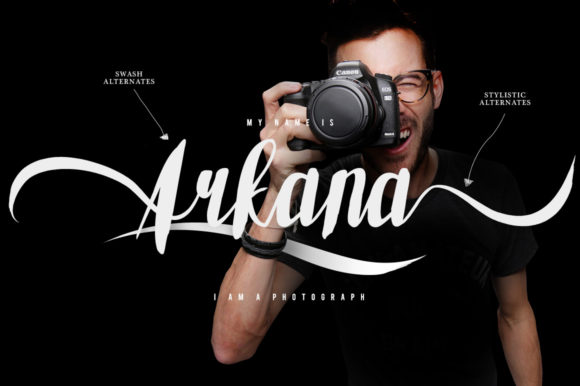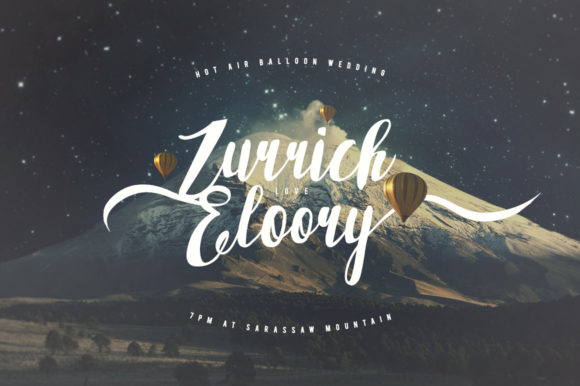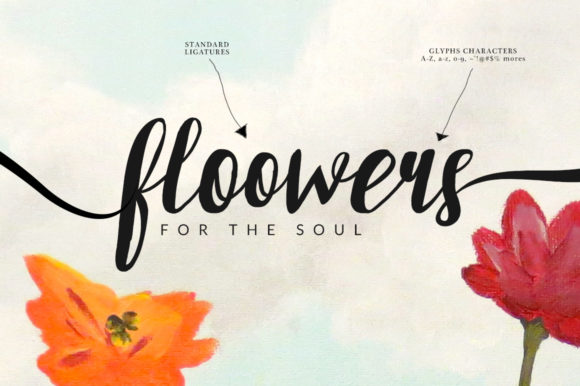
Introducing Chromount Script Font: The Perfect Charm for Your Design Projects
Are you looking for a font that can add a touch of sweetness and elegance to your design projects? Look no further than Chromount Script Font! This beautiful font is designed to bring a sense of charm and sophistication to any design, making it perfect for crafters, designers, and anyone looking to add a personal touch to their work.
What Makes Chromount Script Font So Special?
Chromount Script Font is a unique and stylish font that is sure to capture the attention of your audience. Its elegant and flowing script style makes it perfect for a variety of design projects, from wedding invitations and party decorations to branding and advertising materials. The font’s sweet and charming appearance is sure to leave a lasting impression on your viewers, making it an excellent choice for anyone looking to add a touch of personality to their designs.
Key Features of Chromount Script Font
- Elegant Script Style: Chromount Script Font features a beautiful, flowing script style that is perfect for adding a touch of sophistication to your designs.
- Unique and Stylish: This font is designed to stand out from the crowd, making it perfect for designers and crafters looking to add a personal touch to their work.
- Highly Versatile: Chromount Script Font can be used for a wide range of design projects, from wedding invitations and party decorations to branding and advertising materials.
- Easy to Read: Despite its elegant and flowing style, Chromount Script Font is highly legible, making it perfect for use in both digital and print materials.
How to Use Chromount Script Font in Your Design Projects
Using Chromount Script Font in your design projects is easy! Here are a few ideas to get you started:
- Wedding Invitations: Add a touch of elegance and sophistication to your wedding invitations with Chromount Script Font.
- Party Decorations: Use Chromount Script Font to create beautiful party decorations, such as banners, garlands, and gift tags.
- Branding and Advertising: Add a personal touch to your branding and advertising materials with Chromount Script Font, making them stand out from the crowd.
- Digital Designs: Use Chromount Script Font in your digital designs, such as social media graphics, blog posts, and email newsletters.
Why Designers and Crafters Love Chromount Script Font
Designers and crafters love Chromount Script Font for its unique and stylish appearance, as well as its versatility and ease of use. Here are a few reasons why:
- Time-Saving: Chromount Script Font saves designers and crafters time and effort, as it can be used for a wide range of design projects.
- Professional Results: With Chromount Script Font, designers and crafters can achieve professional-looking results, even if they don’t have extensive design experience.
- Personal Touch: Chromount Script Font allows designers and crafters to add a personal touch to their work, making it perfect for those looking to stand out from the crowd.
In conclusion, Chromount Script Font is the ideal font for adding a sweet charm to any design project! Its elegant and flowing script style, unique and stylish appearance, and versatility make it perfect for designers and crafters looking to add a personal touch to their work. With Chromount Script Font, you can create beautiful and professional-looking designs that are sure to capture the attention of your audience.